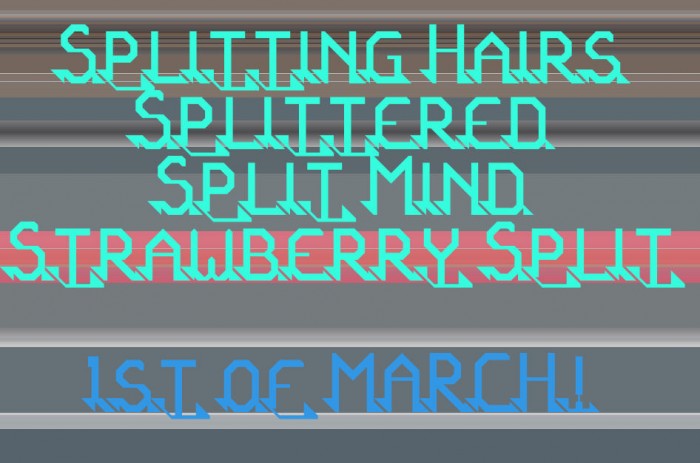
This design started out with a blocky look on thick bases to create a kind of joined-up look.
But a glitch on 2 glyphs gave the gap, which I liked upon reflection and recreated on all glyphs. I adjusted spacing and some drops below the baseline.